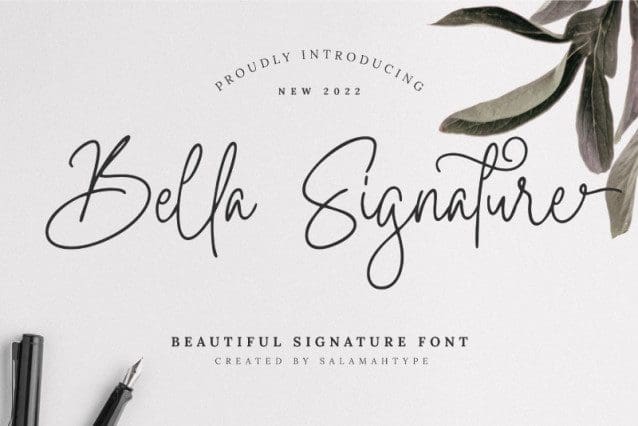
Bella Signature Font
Bella Signature Font – clean and elegant handwritten script. BellaSignature is perfect for wedding invitations, websites, branding projects, logo, social media posts, advertisements, product packaging, product designs, label, photography, watermark and anything you want!